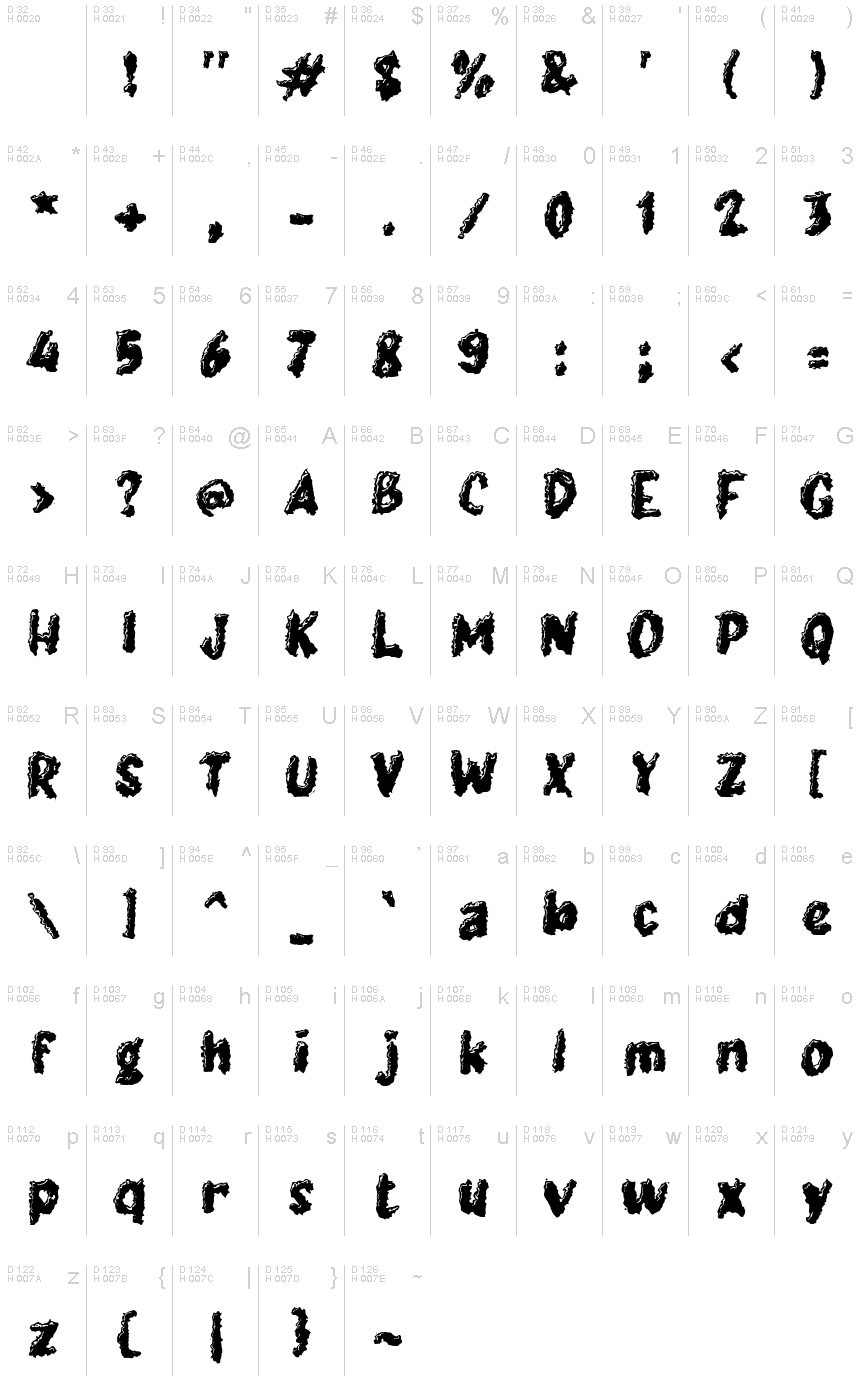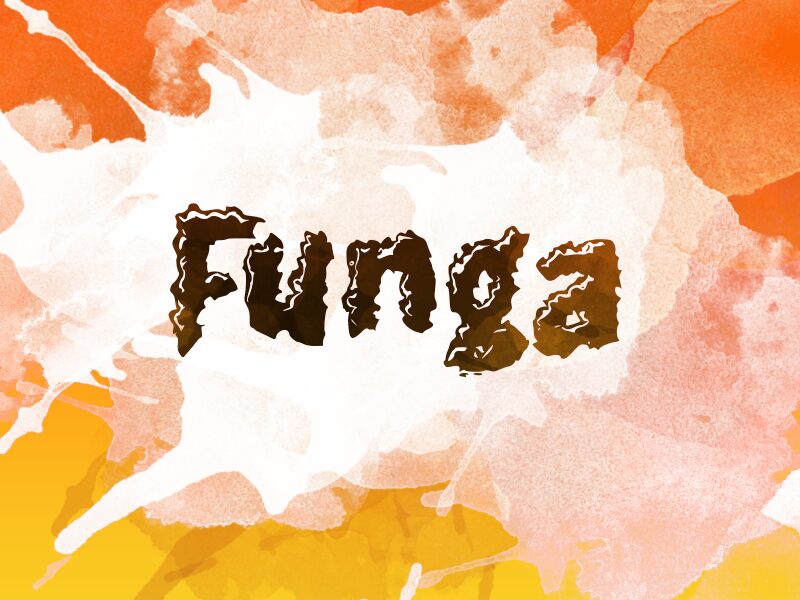
Funga
Funga, crafted by the imaginative wep, is a display font that exudes a sense of robust creativity with its bold, eroded style. The semi-condensed width offers an impactful visual presence that commands attention while maintaining readability. Its eroded texture gives it a unique character, suggesting a vintage or rustic vibe that can add depth and personality to various design projects.
The Funga font's aesthetic appeal lies in its ability to marry the solidity of bold typefaces with the organic feel of wear and erosion. This quality makes it particularly suitable for projects that aim to stand out with a touch of grunge or an echo of historical charm. From eye-catching headlines to striking logos and edgy editorial layouts, Funga is versatile enough to enhance your creative vision with its distinctive style and appearance.